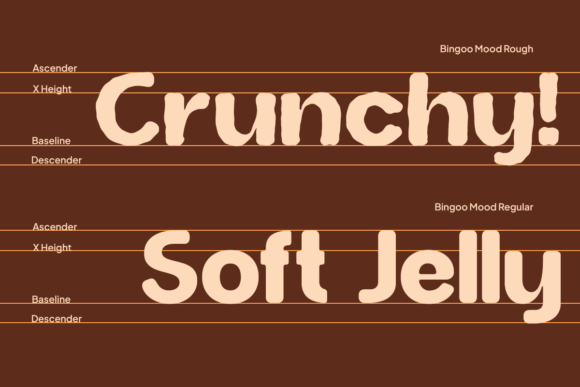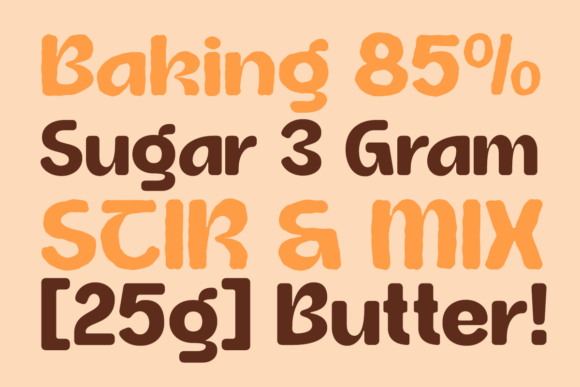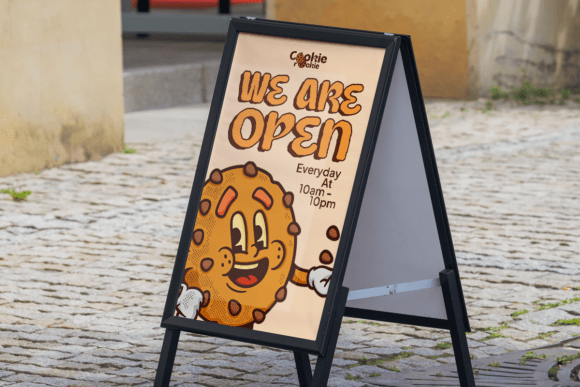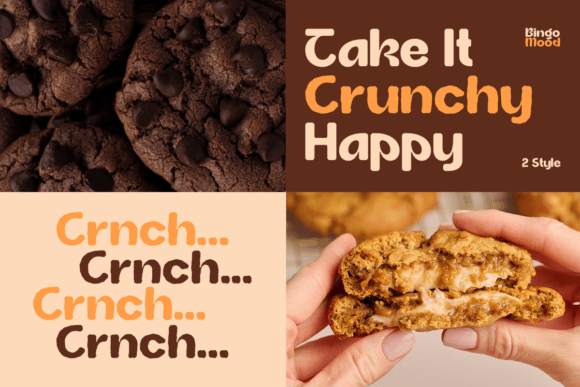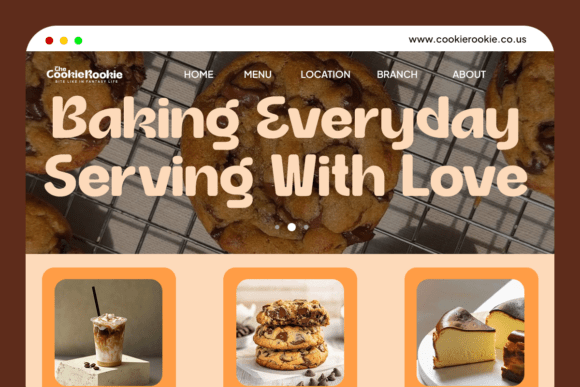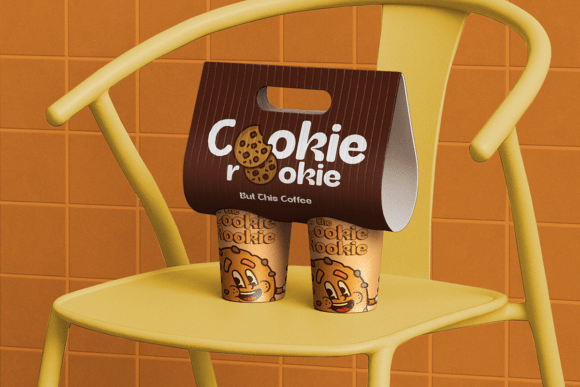
Bingo Mood Font: The Perfect Addition to Your Food-Themed Designs
Are you a designer or crafter looking for a font that can add a touch of warmth, happiness, and fun to your food-themed designs? Look no further than the Bingo Mood Font. This playful and tasty display font is inspired by the soft and crunchy textures of cookies and bakery goods, making it perfect for packaging, cafe branding, social media posts, and fun product logos.
The Inspiration Behind Bingo Mood
The Bingo Mood Font is designed to evoke the feeling of warmth and happiness that comes with indulging in sweet treats. The font’s creator was inspired by the soft and crunchy textures of cookies and bakery goods, and sought to capture that feeling in a typeface that would be perfect for food-themed designs. The result is a font that is both playful and appetizing, making it perfect for designers and crafters who want to add a touch of personality to their work.
Two Styles to Suit Your Needs
One of the best things about the Bingo Mood Font is that it comes in two styles: Regular and Rough. This gives you the flexibility to mix smooth and textured looks for extra flavor in your designs. The Regular style is perfect for designs where you want a clean and smooth look, while the Rough style adds a bit of texture and whimsy to your designs. Whether you’re designing for desserts, bakeries, or cozy coffee shops, the Bingo Mood Font has a style that will suit your needs.
Perfect for Food-Themed Designs
The Bingo Mood Font is perfect for a wide range of food-themed designs, including:
- Packaging: Add a touch of personality to your product packaging with the Bingo Mood Font.
- Cafe branding: Use the Bingo Mood Font to create a warm and welcoming brand identity for your cafe or coffee shop.
- Social media posts: Add a bit of fun and whimsy to your social media posts with the Bingo Mood Font.
- Fun product logos: Use the Bingo Mood Font to create a fun and playful logo for your food-themed product.
Why Choose the Bingo Mood Font?
There are many reasons why you should choose the Bingo Mood Font for your food-themed designs. Here are just a few:
- Unique and playful: The Bingo Mood Font is a unique and playful typeface that will add a touch of personality to your designs.
- Flexible: The font comes in two styles, giving you the flexibility to mix smooth and textured looks for extra flavor in your designs.
Tips for Using the Bingo Mood Font
Here are a few tips for using the Bingo Mood Font in your designs:
- Use it for headings: The Bingo Mood Font is perfect for headings and titles, where you want to add a touch of personality to your design.
- Mix and match: Experiment with mixing and matching the Regular and Rough styles to create a unique look.
- Add texture: Use the Rough style to add texture and whimsy to your designs.
- Keep it simple: Don’t be afraid to keep your design simple and clean, and let the Bingo Mood Font do the talking.
In conclusion, the Bingo Mood Font is a playful and tasty display font that is perfect for food-themed designs. With its unique and playful style, flexibility, and ease of use, it’s an ideal choice for designers and crafters who want to add a touch of personality to their work. Whether you’re designing for desserts, bakeries, or cozy coffee shops, the Bingo Mood Font is sure to make your design stand out.